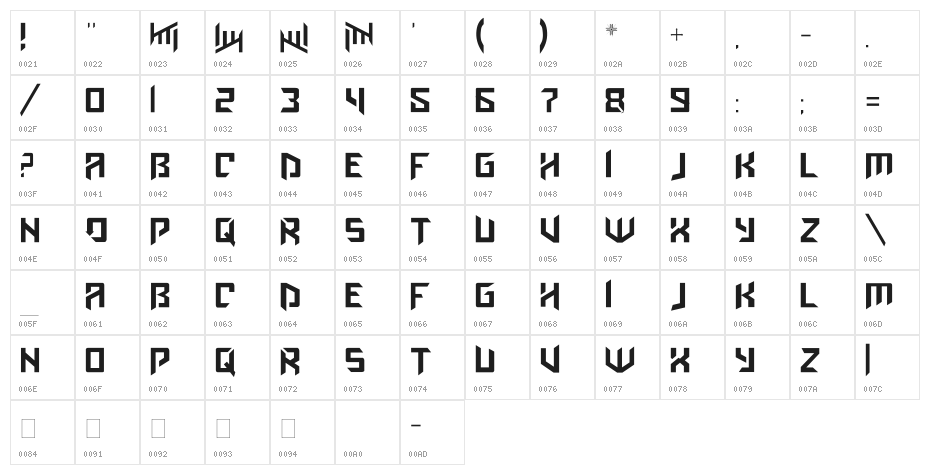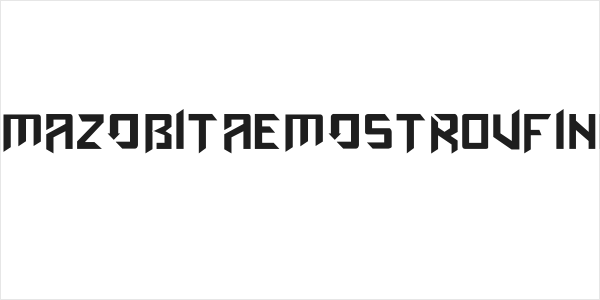
AmazObitaemOstrovFine Font
AmazObitaemOstrovFine Description
This font features a bold, angular design with sharp edges and geometric forms. The characters are constructed with a futuristic aesthetic, emphasizing a sense of modernity and innovation. The uppercase letters are particularly striking, with a consistent use of diagonal cuts and pointed terminals that create a dynamic visual impact. The numerals and special characters maintain this theme, offering a cohesive look across all glyphs. The font's style is both distinctive and versatile, suitable for projects that require a strong, assertive presence.
| Proposed Projects | Ideal for sci-fi themed projects, video game titles, tech branding, and futuristic posters. |